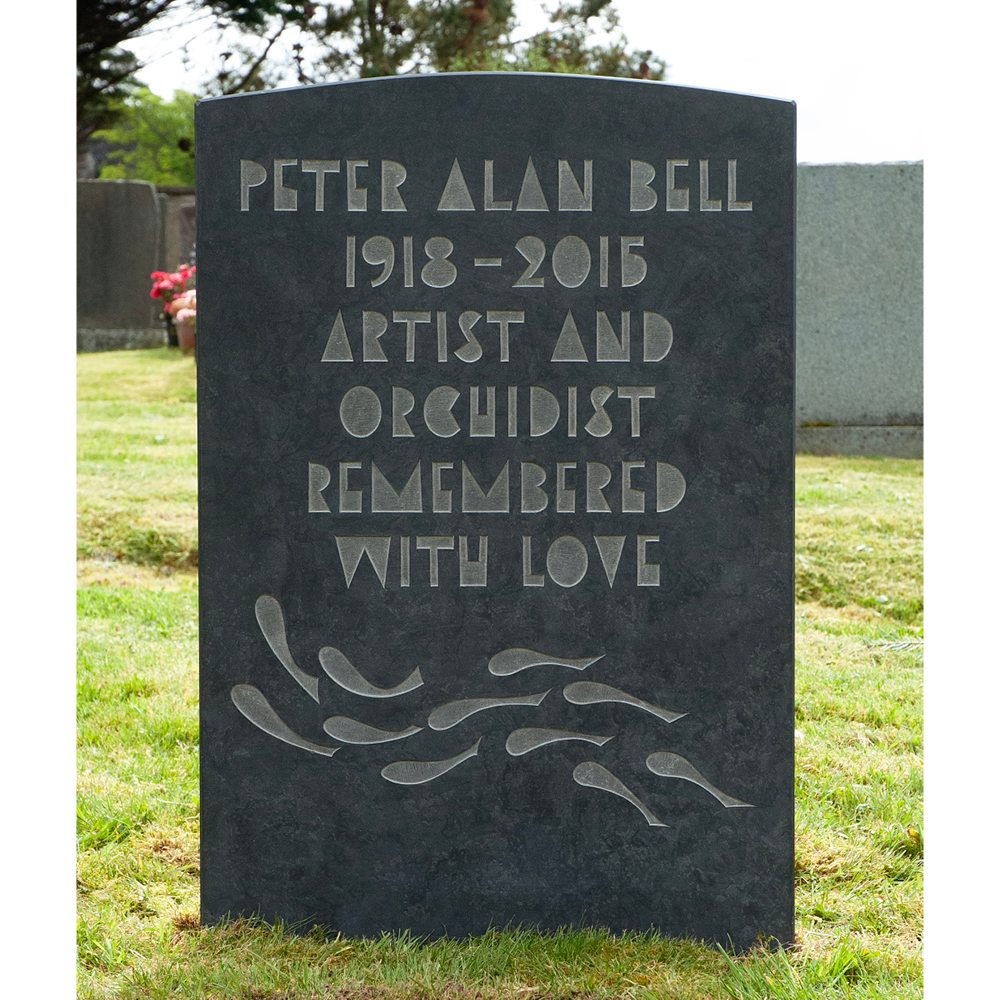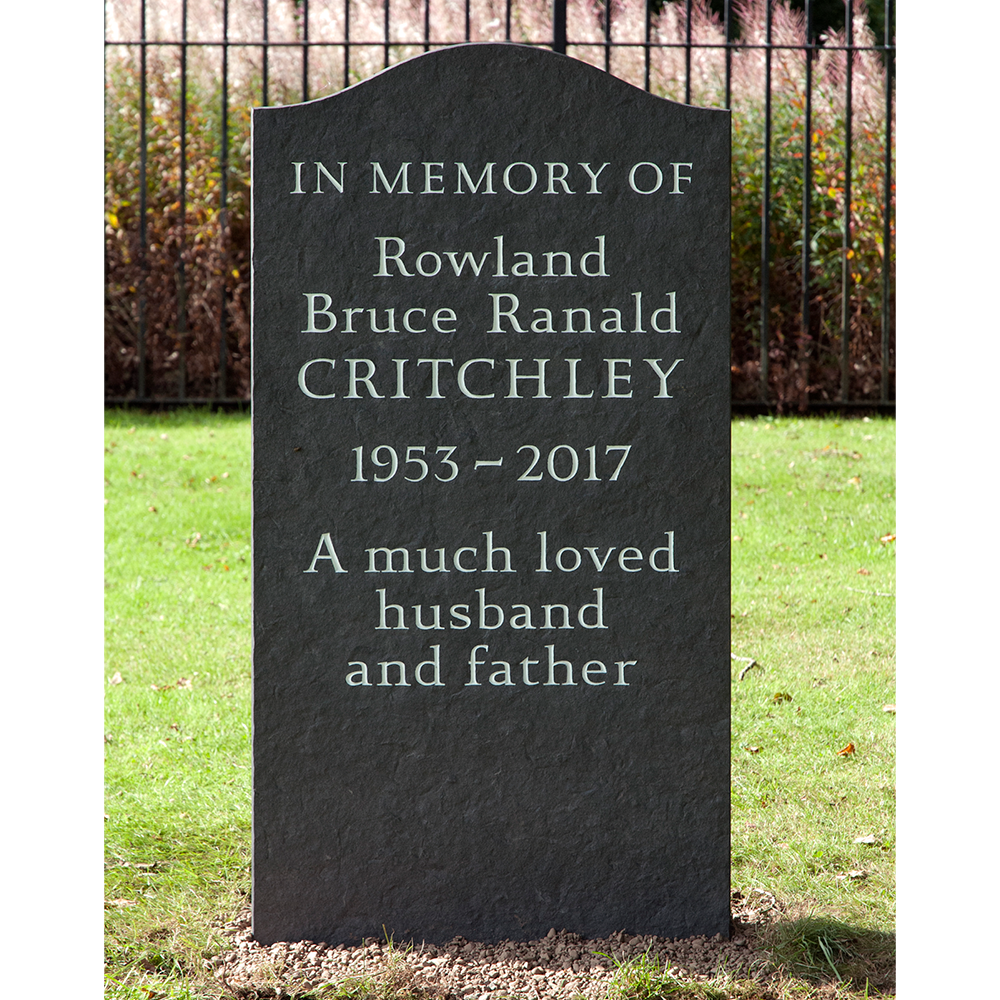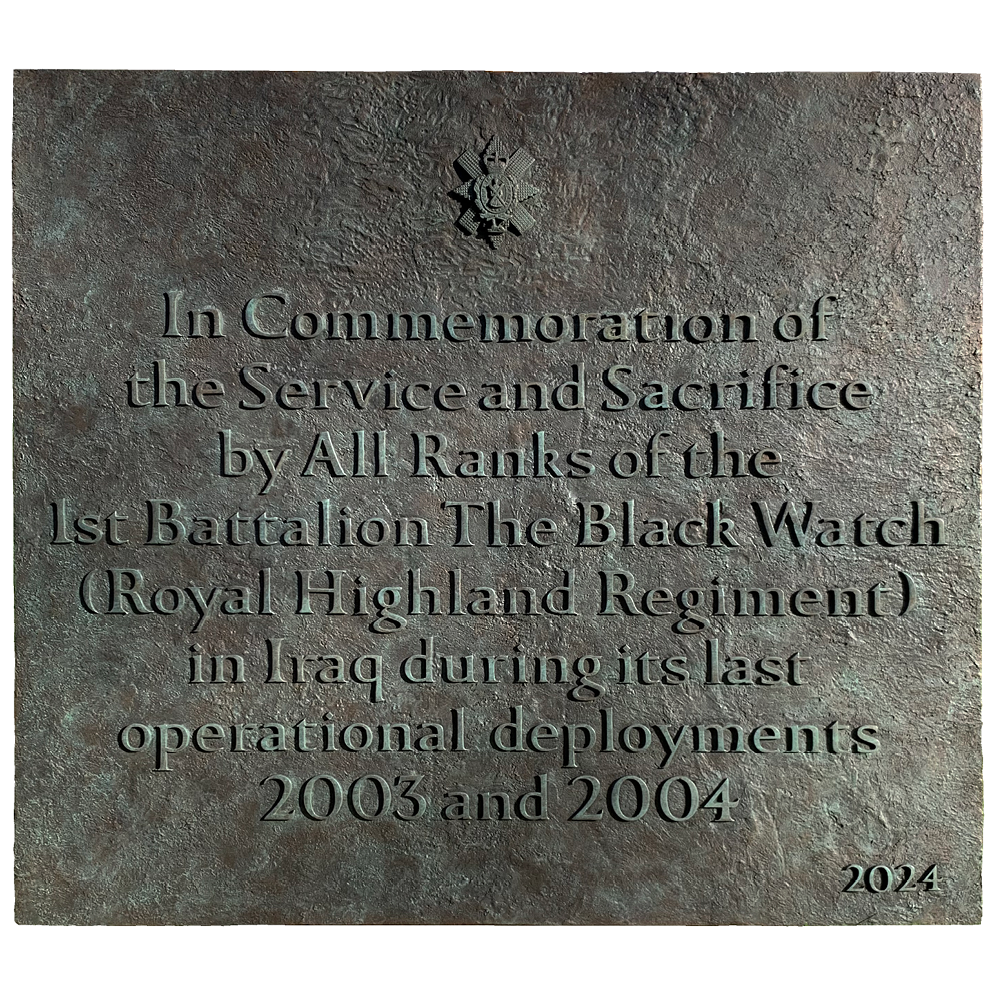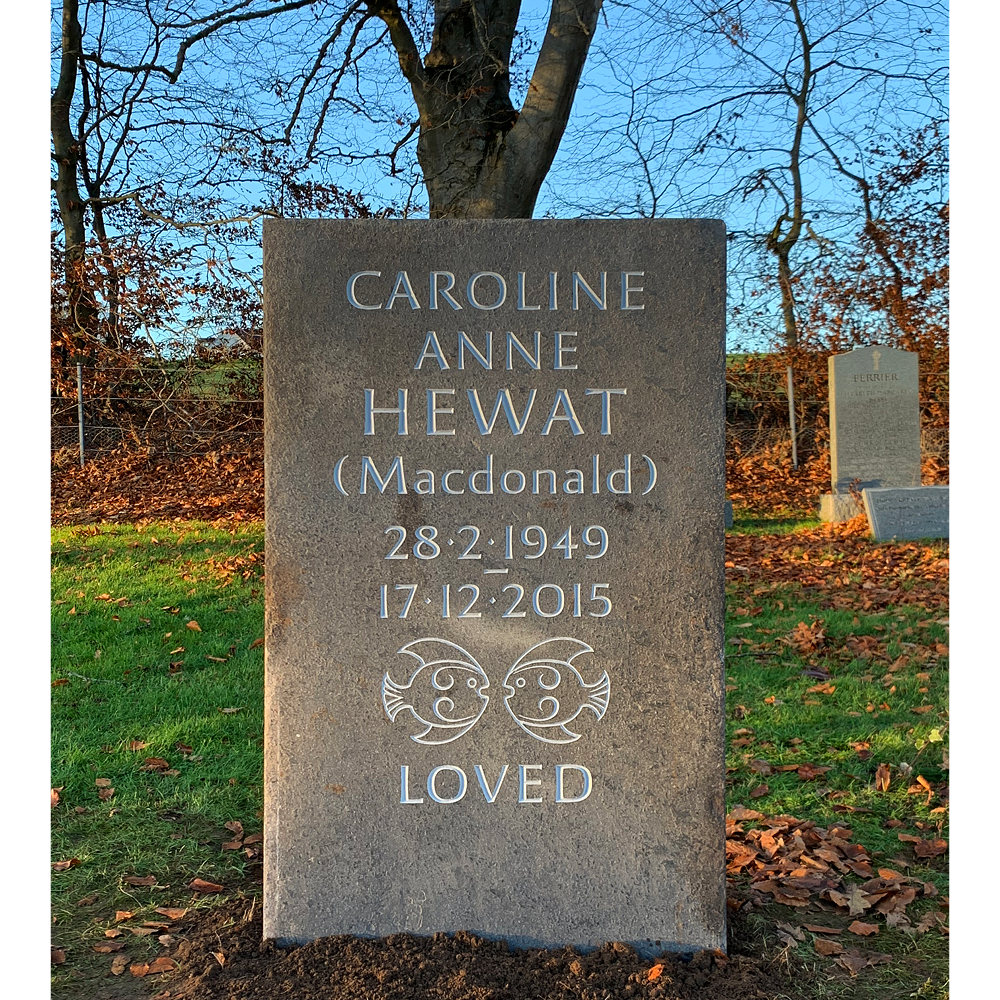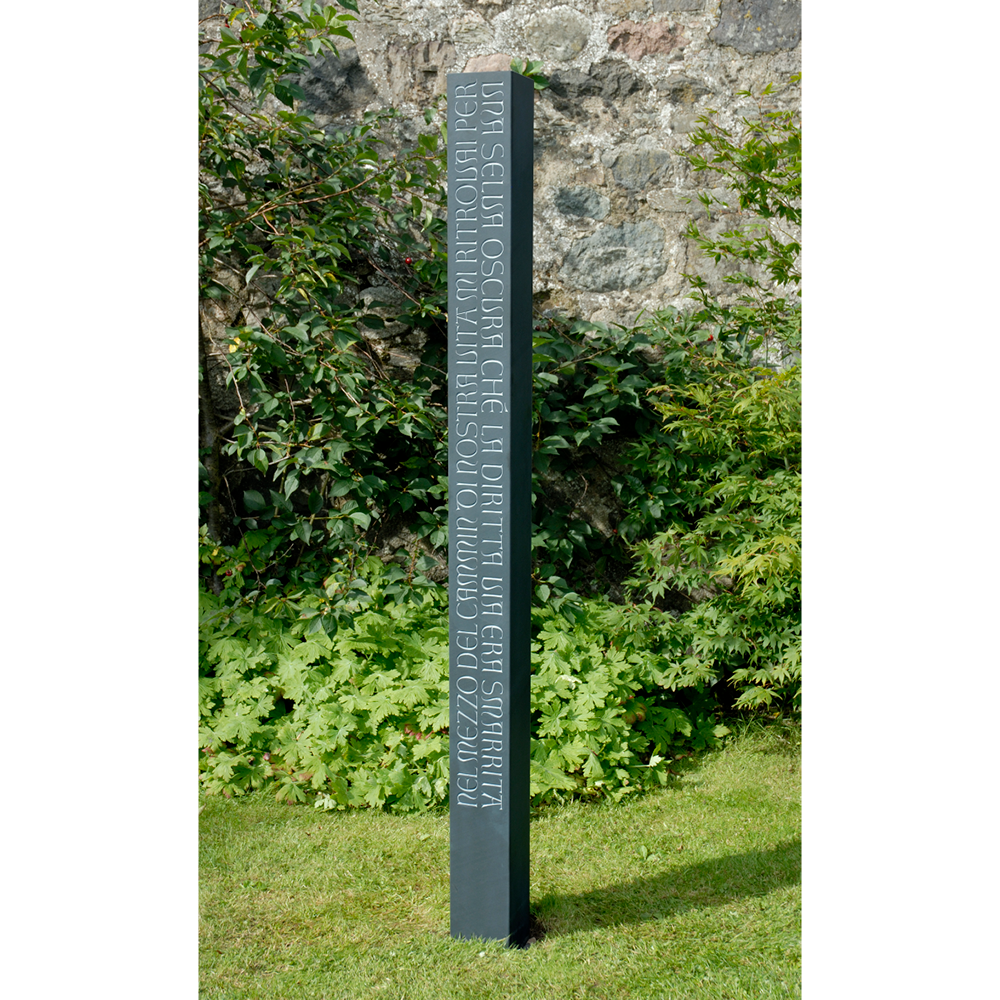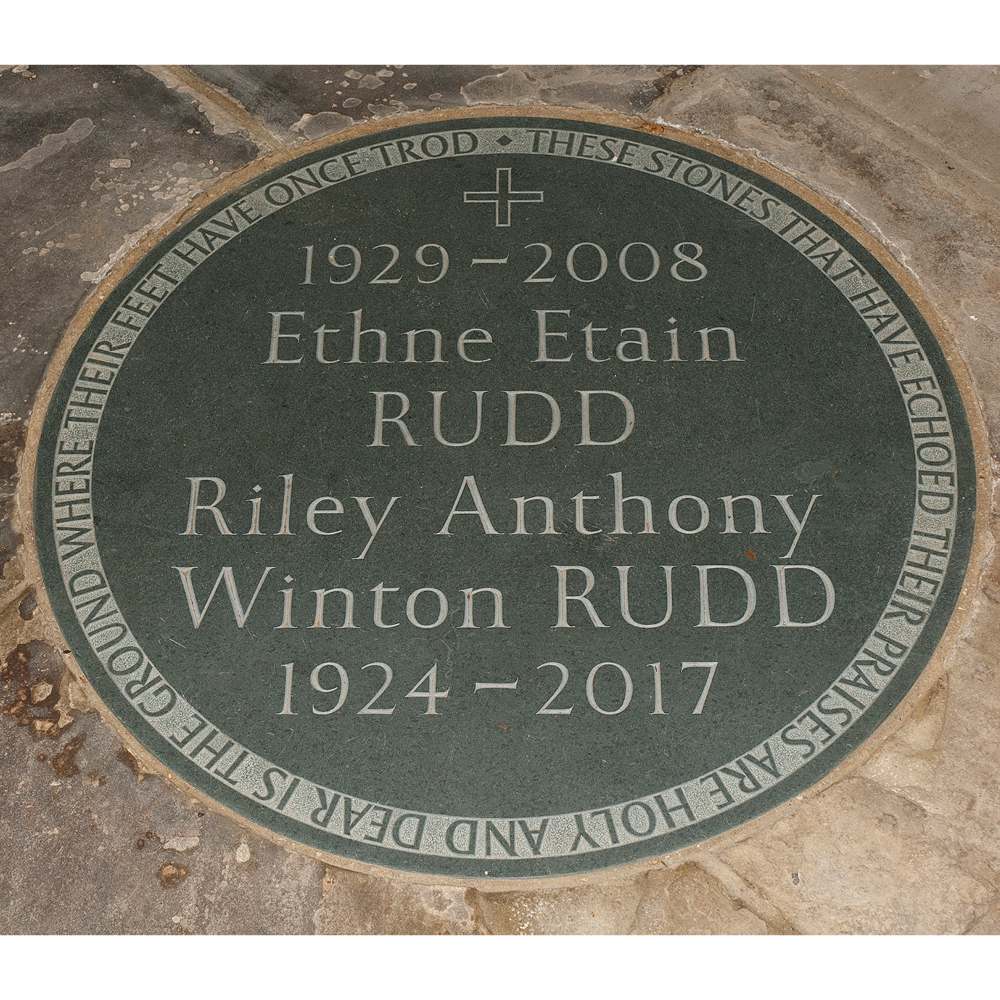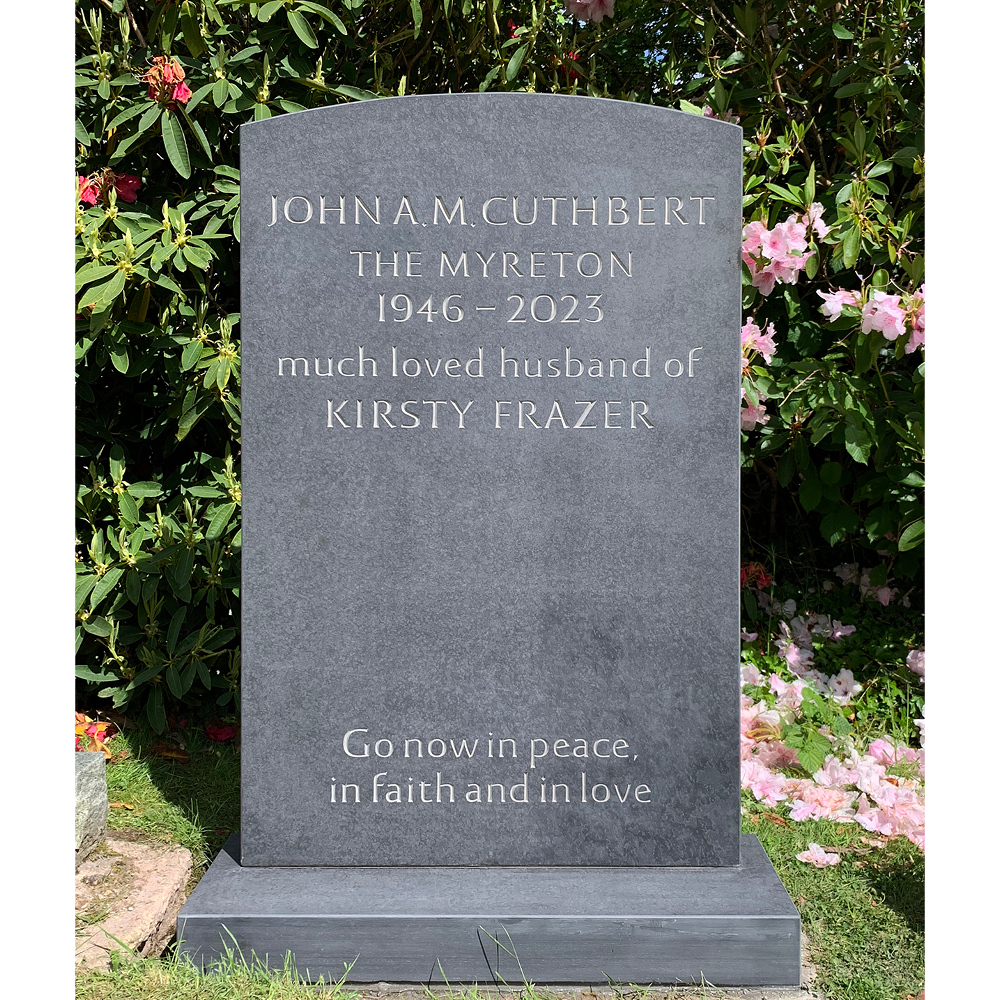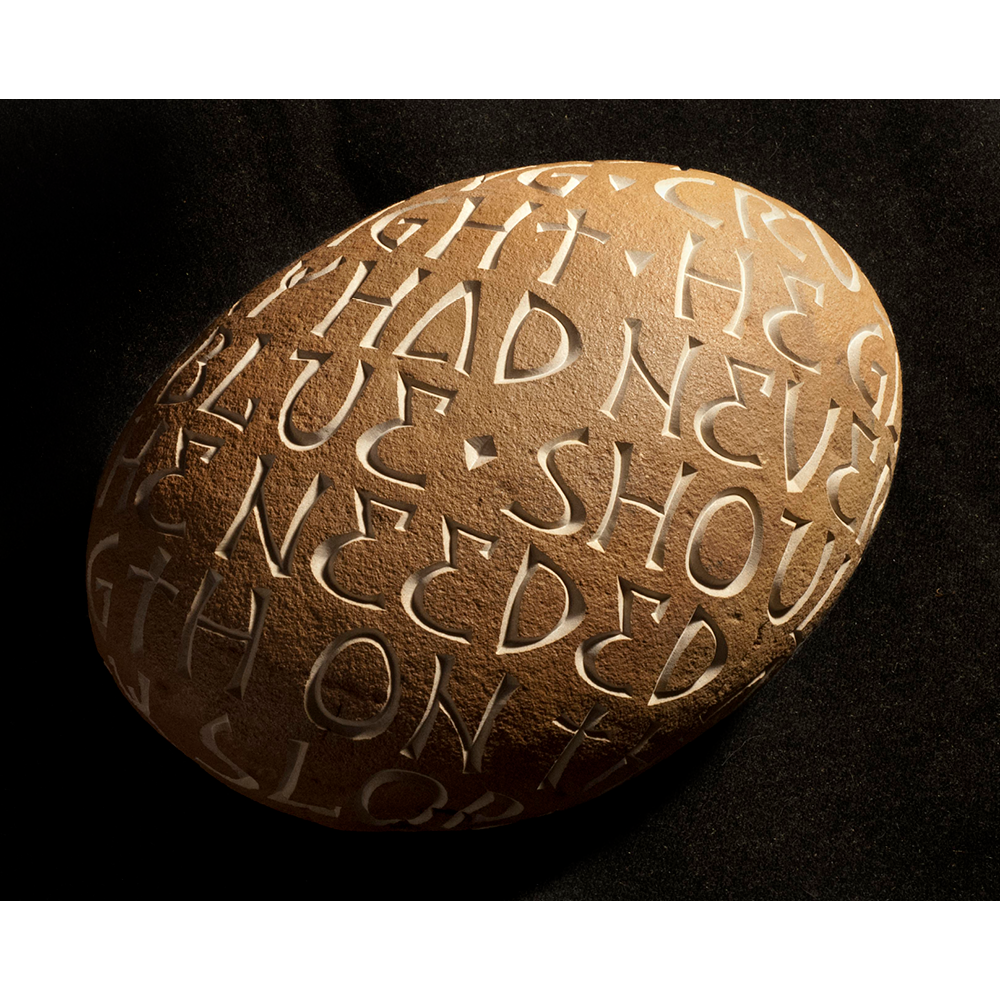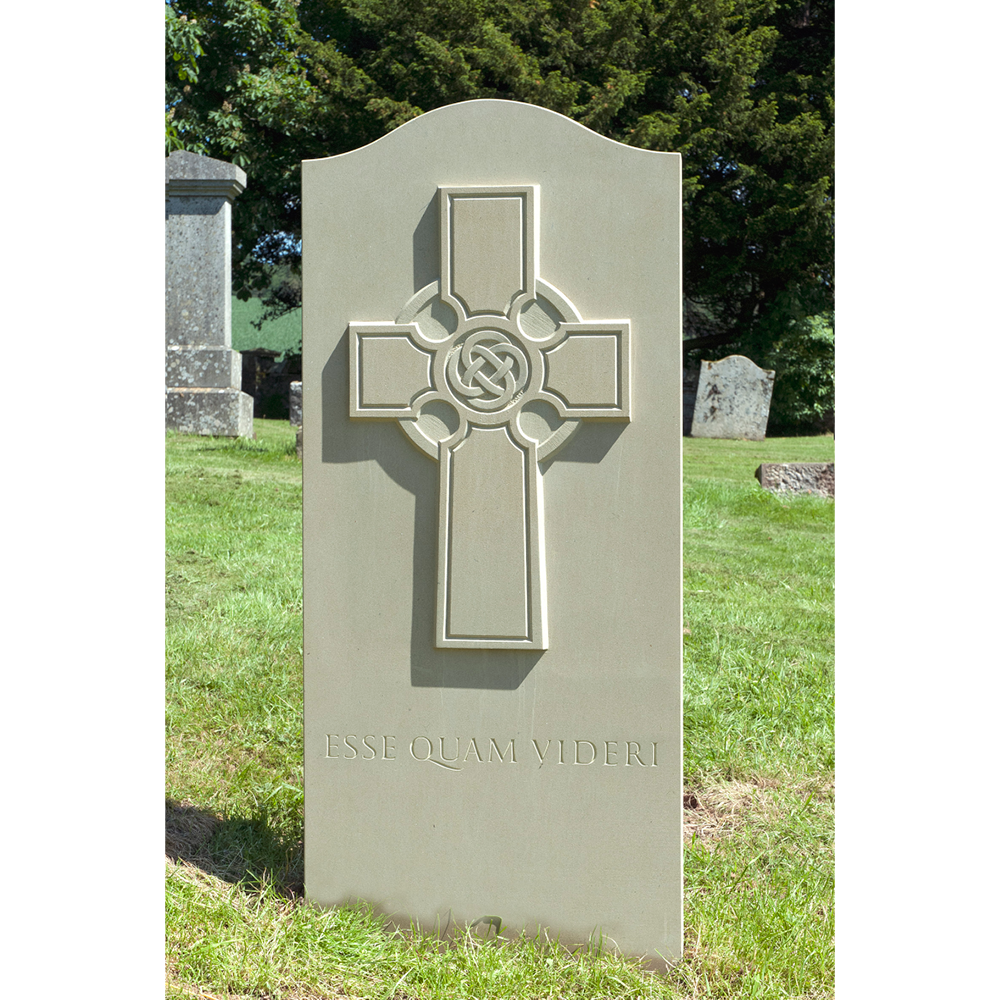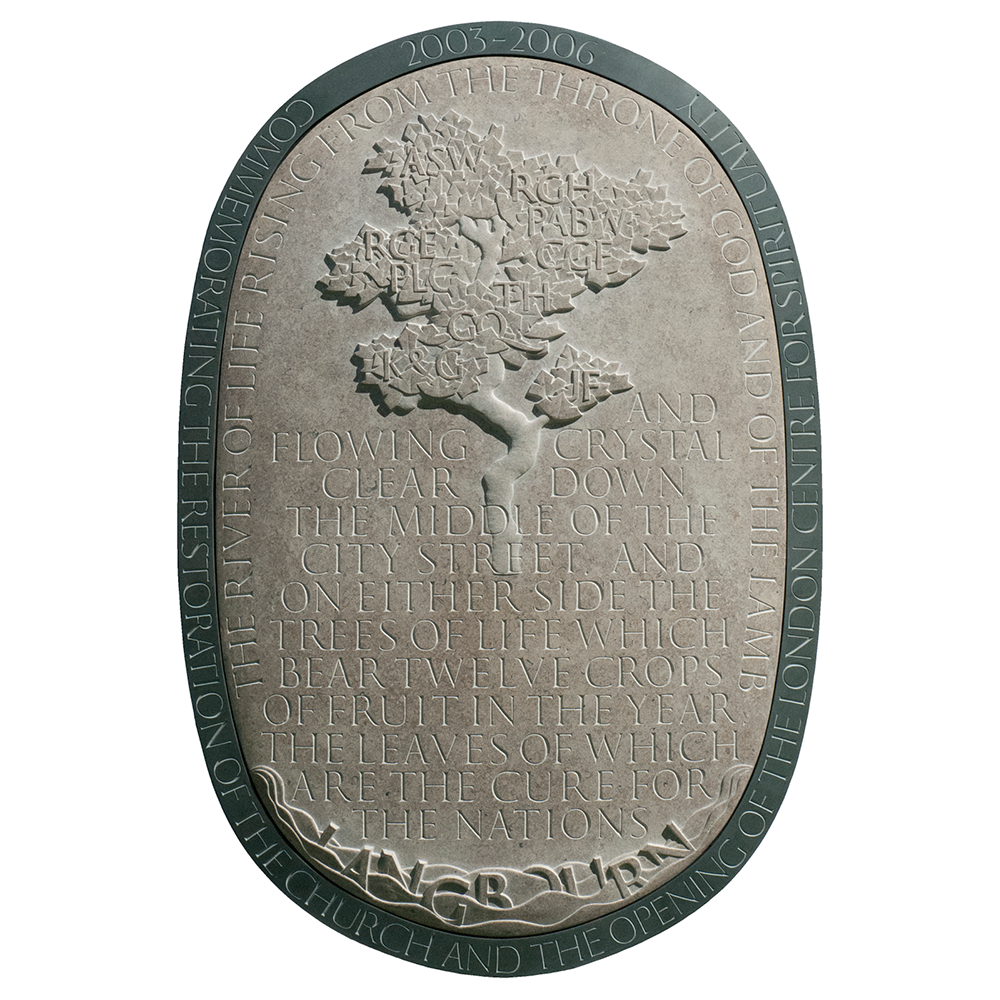
Robbie Schneider specialised in letter design, lettering sculpture and inscriptional letter carving after studying sculpture at Camberwell and Byam Shaw Art Schools in London.
Working in Stone, wood, metals and other media, Robbie’s interest is in the integration of text, material and form. Technically accomplished and innovative work has won him many public and private commissions. Robbie exhibits regularly and is an elected member of Letter Exchange, the Royal Society of Sculptors and the Scottish Lettercutters Association, and he has worked with The Lettering Arts trust for many years. Robbie teaches regularly and has run courses in Britain, Europe and Australia. His work can be found throughout Britain and in the USA.